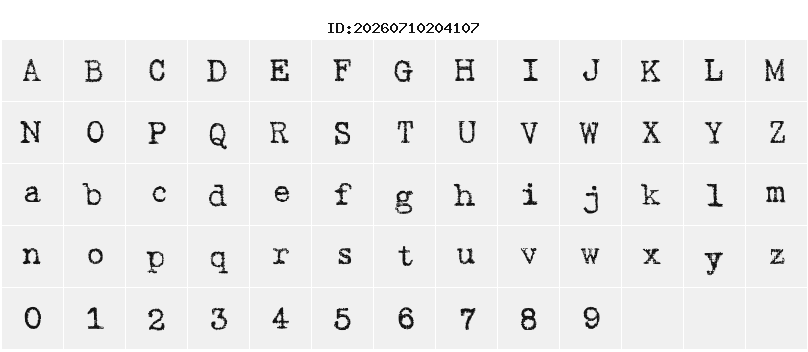
• Font Name: Gabriele Dark Ribbon FG
• Copyright: based on D. Rakowski's "Harting" font
• Designer: Andreas Höfeld and Dave Rakowski
• Description: Gabriele was the name of his granddaughter. In 1957 Max Grundig, German industrialist, bought the two companies Triumph and Adler and merged them into his office machine label 'Triumph Adler'. Thus, 'Gabriele' became the name of a popular series of typewriters in postwar Germany. We have chosen this name for our series of typewriter fonts in reminiscence of those machines and all the ladies (called Gabriele or not) that used to type on them from the 1950s to the '80s. The Ribbon members of the Gabriele are based on the Dave-Rakowski font "Harting". You can see the texture of the ribbon in each letter. There is a lighter companion font "Gabriele Light Ribbon FG". This is a monospaced font. The characters have all the same width - with the exception of the "ellipsis" character ("...") which is of course three spaces wide. Naturally, these fonts have and need no kerning.